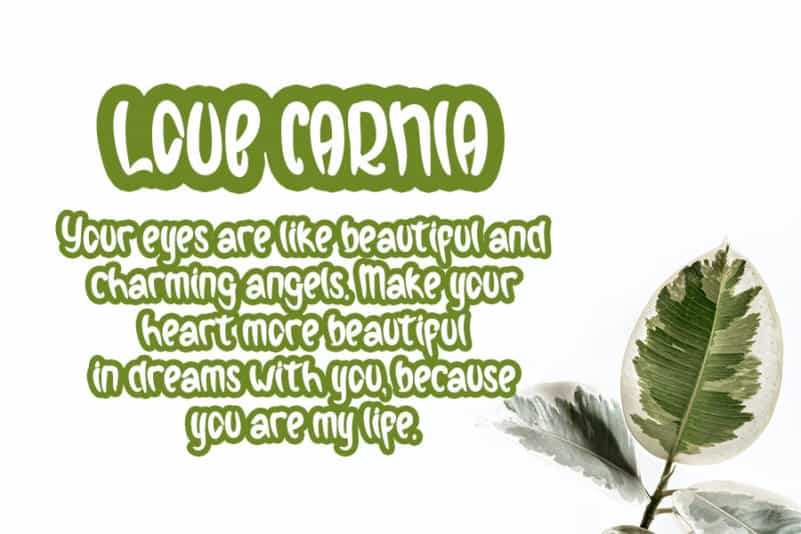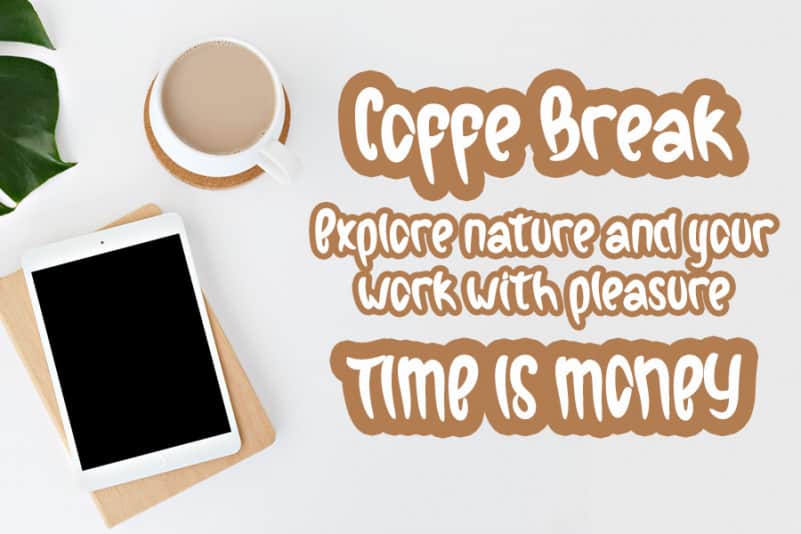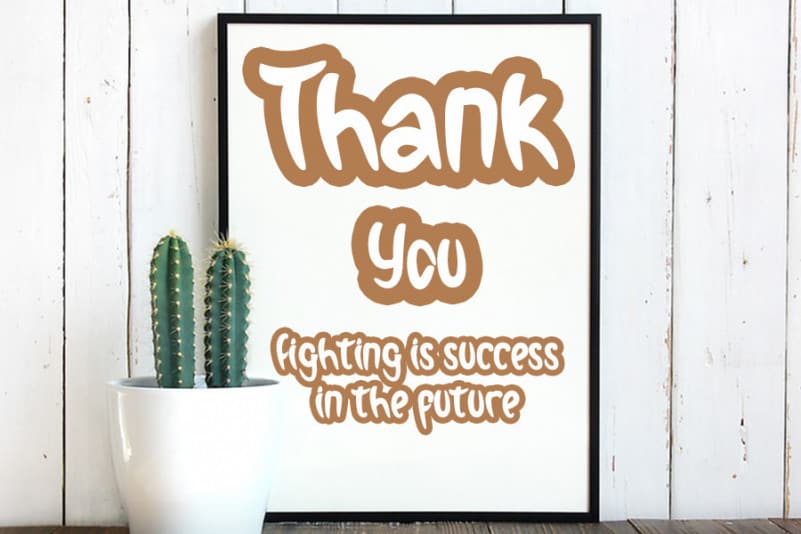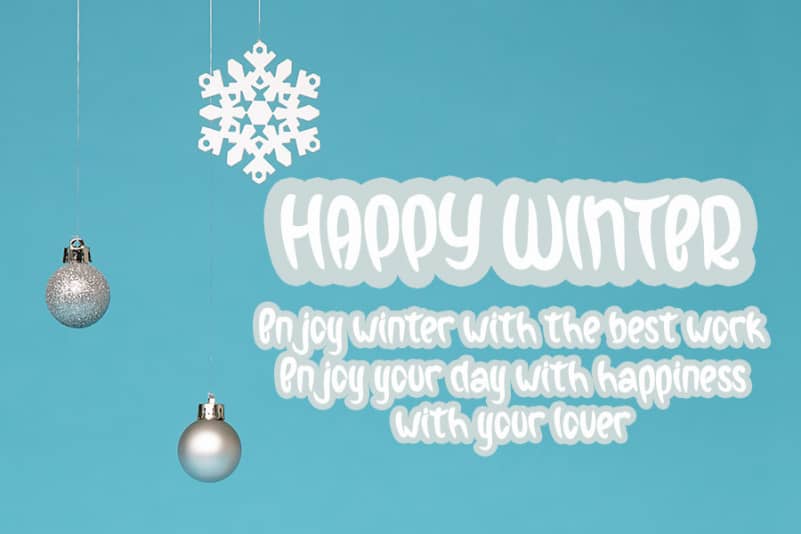
Smart Hello Brush Font
Smart Hello Brush Font results out of a stunning pairing of a brush pen and pencil that makes it look incredibly endearing and authentic. Use this gorgeous and unique handwritten font to bring any DIY project to life!
inermediaSTUDIO